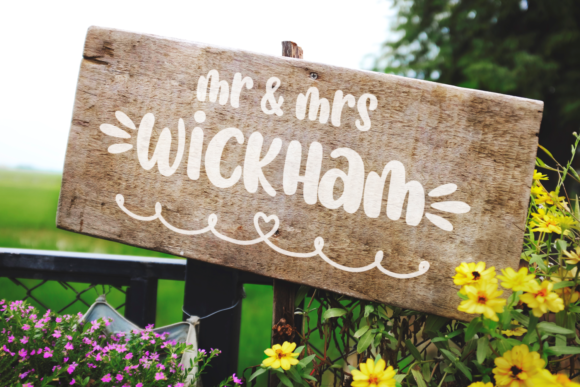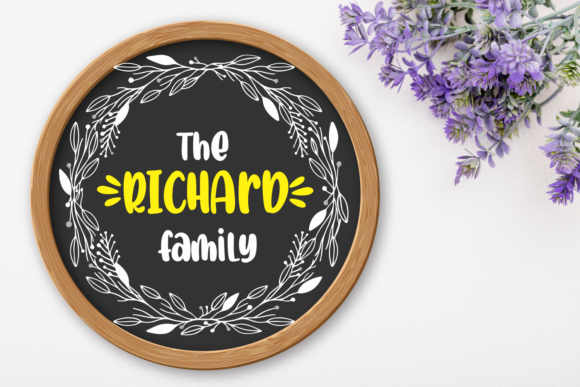
My Sweet Farmhouse Font
db-ku.com - Script & Handwritten -- My Sweet Farmhouse is a cute and quirky handwritten font. Its natural and unique style makes it incredibly fitting to a large pool of designs.